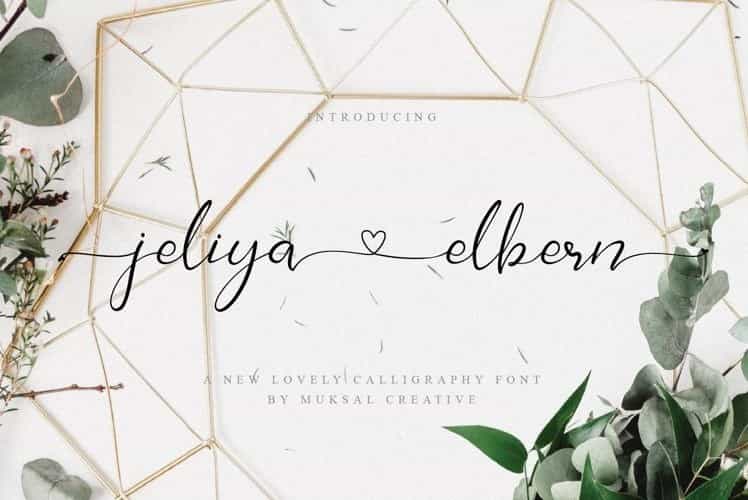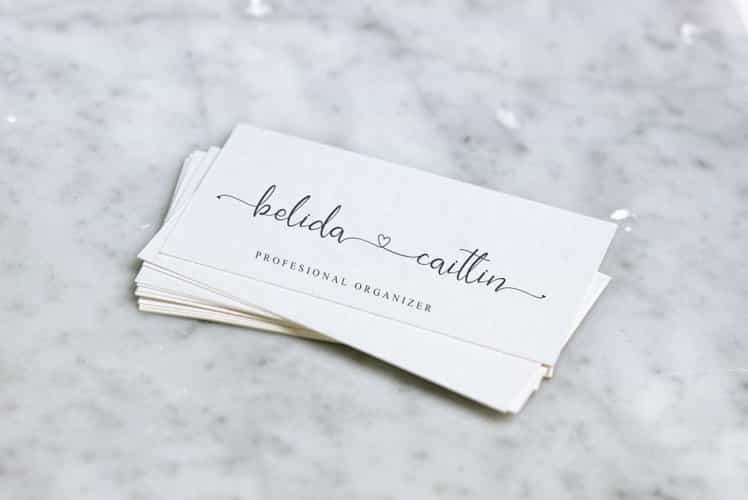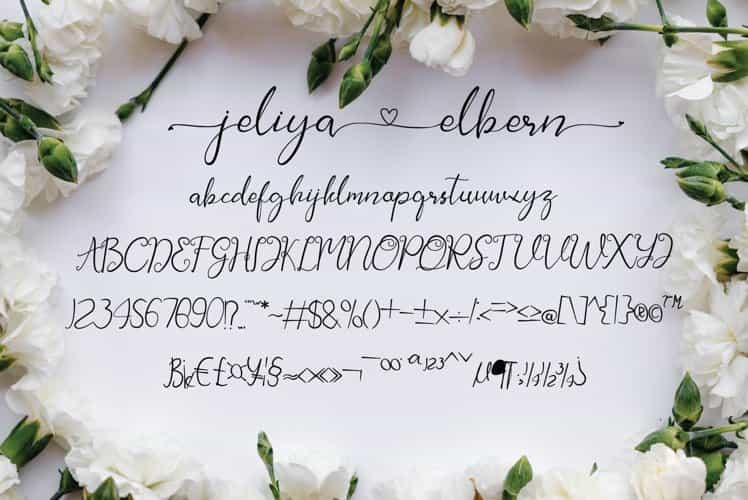
Discover Jeliya Elbern Calligraphy Font, part of the Calligraphy collection—a versatile and unique font perfect for adding a personal touch to your projects. Download it for free and enjoy crafting designs with style, from invitations to social media posts. This font is available exclusively for personal use, giving you the freedom to create without limits. Unlock your creativity with Jeliya Elbern Calligraphy Font today!
Jeliya Elbern is a chic Calligraphy Font with a varied base, a sleek line, classic and elegant touch. If you require a hint of sophistication and modernity to your branding or designs it is suitable for a variety of purposes, including headliners, signatures logos, wedding invitations T-shirt, letterhead and signage, labels posters, news, badges and so on.